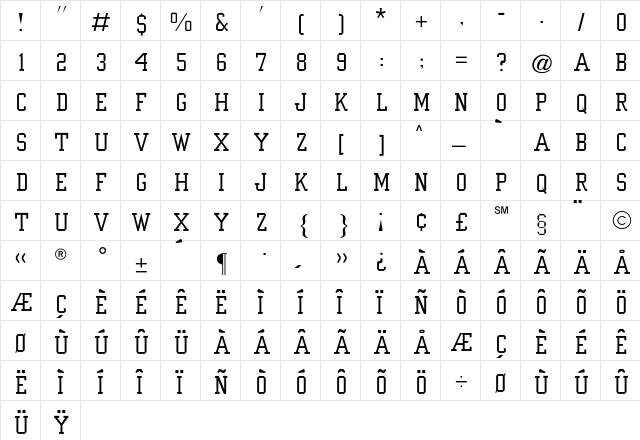
Yearbook CG Filler Regular
Design Context for Yearbook CG Filler Typeface
Yearbook CG Filler offers clean, dependable letterforms without strong stylistic allegiance, making it a practical choice for designers who need flexibility.
Pro Tip: Use Yearbook CG Filler in both headline and body roles to test its range before committing to a single application.